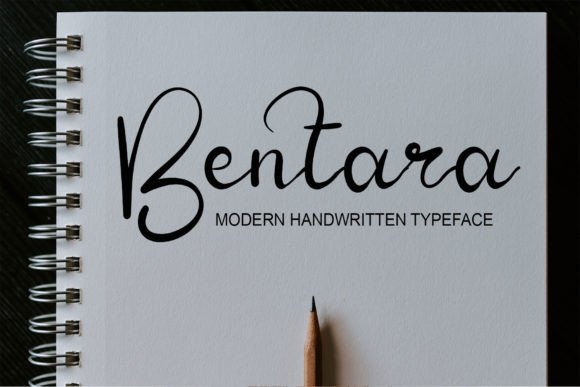
The Charm of Bentara Font: A Designer’s New Best Friend
I still remember the project like it was yesterday. I was working on a wedding invitation design, and my client had specifically asked for a font that was both elegant and simple. I scoured the internet, tried out countless fonts, but nothing seemed to fit the bill. That was until I stumbled upon Bentara Font. It was love at first sight! 💕
Bentara Font is a hand-written font created using a tablet, which gives it a unique, personal touch. The font is incredibly simple, yet it exudes a sense of style and sophistication that makes it perfect for a wide range of design projects.
An Honest Review of Bentara Font
What I Love About Bentara Font ✨
• ✅ Simple yet stylish: Bentara Font is perfect for designers who want to add a touch of elegance to their designs without going overboard.
• ✅ Versatile: This font is great for websites, wedding invitations, business cards, signatures, and advertisements.
• ✅ Easy to read: Despite its simplicity, Bentara Font is incredibly easy to read, making it perfect for body text.
• ✅ Unique: The hand-written nature of Bentara Font gives it a unique personality that sets it apart from more traditional fonts.
While Bentara Font is an excellent choice for many design projects, it’s not without its limitations. For example:
• ⚠️ Limited font weights: Bentara Font is only available in a single weight, which may limit its use in certain design projects.
• ⚠️ Not suitable for body text in long documents: While Bentara Font is easy to read, it’s not the best choice for long documents or articles.
A Practical Guide to Using Bentara Font
Bentara Font supports OpenType features, including glyphs and stylistic alternates. Here’s how to access these features in different design applications:
The Story Behind Bentara Font
Bentara Font was created by a young designer who wanted to create a font that was both simple and stylish. The designer, who wishes to remain anonymous, was inspired by the beauty of handwritten fonts and the versatility of digital design.
The designer spent countless hours perfecting Bentara Font, carefully crafting each letter and symbol to create a font that was both elegant and easy to read.
Q: What is Bentara Font?
A: Bentara Font is a hand-written font created using a tablet. It’s a simple yet stylish font that’s perfect for a wide range of design projects.